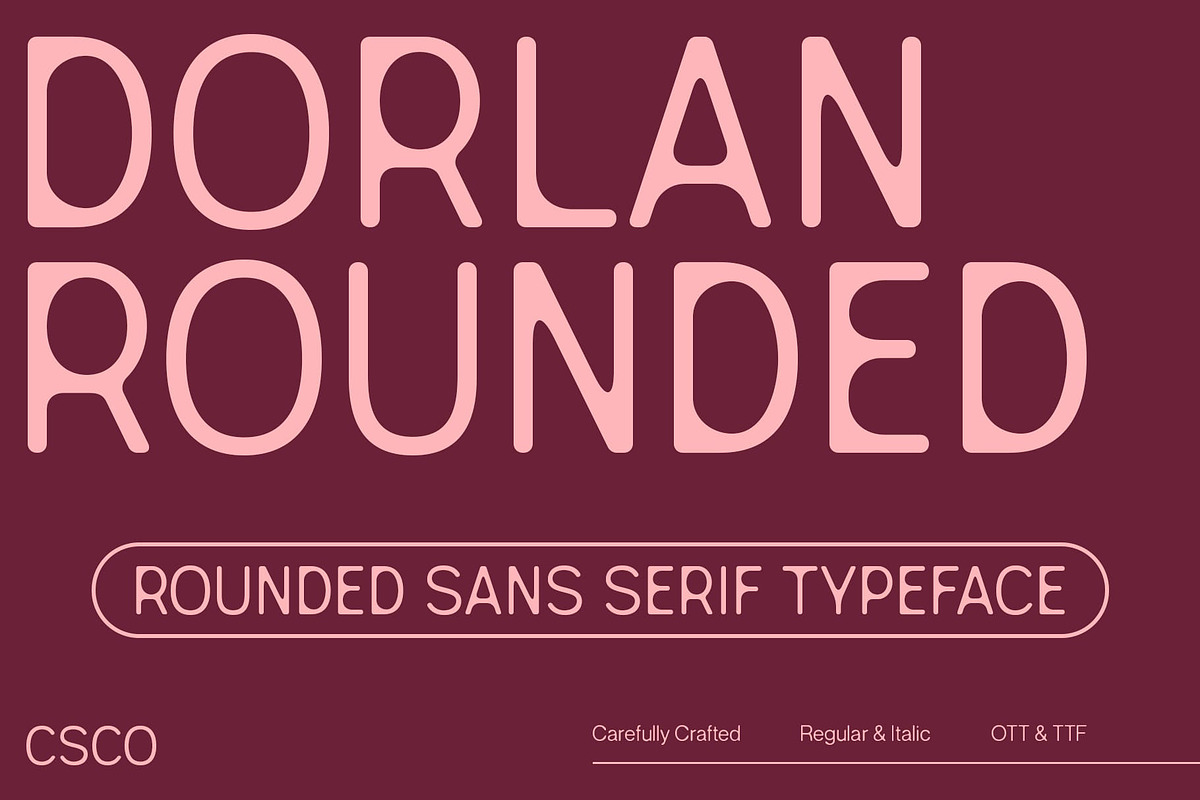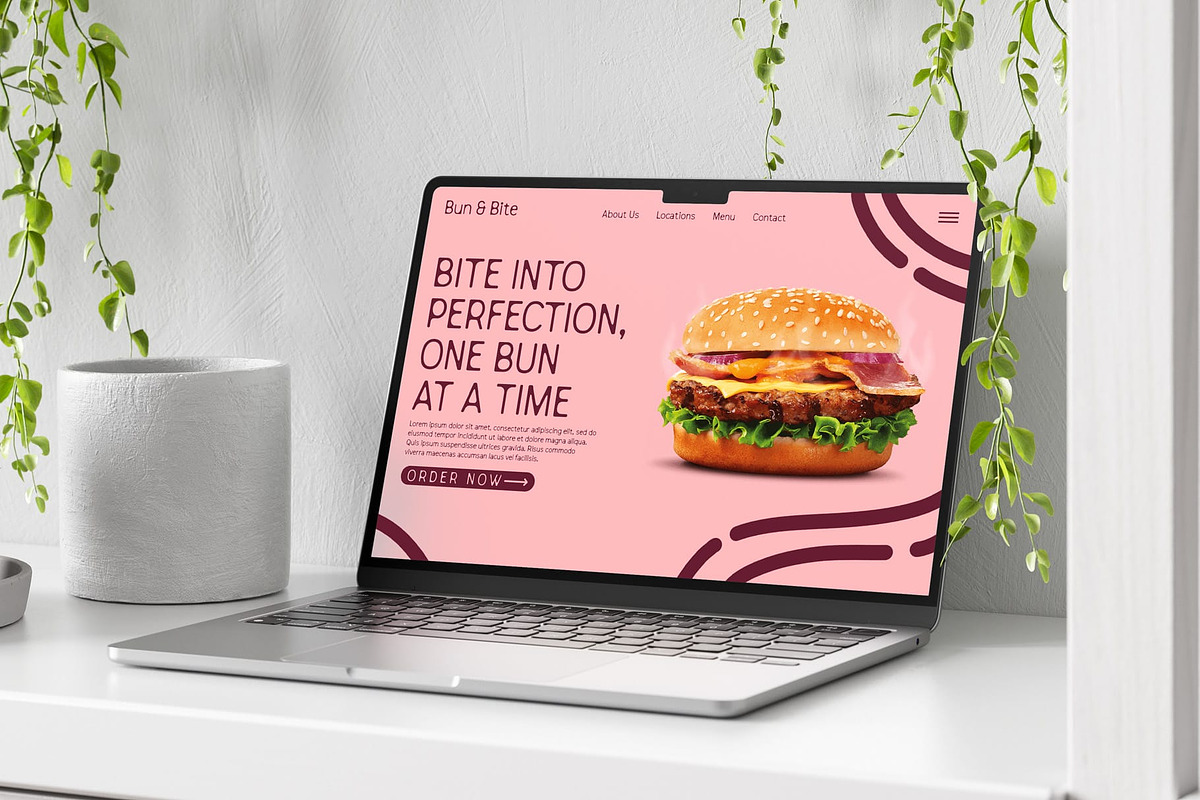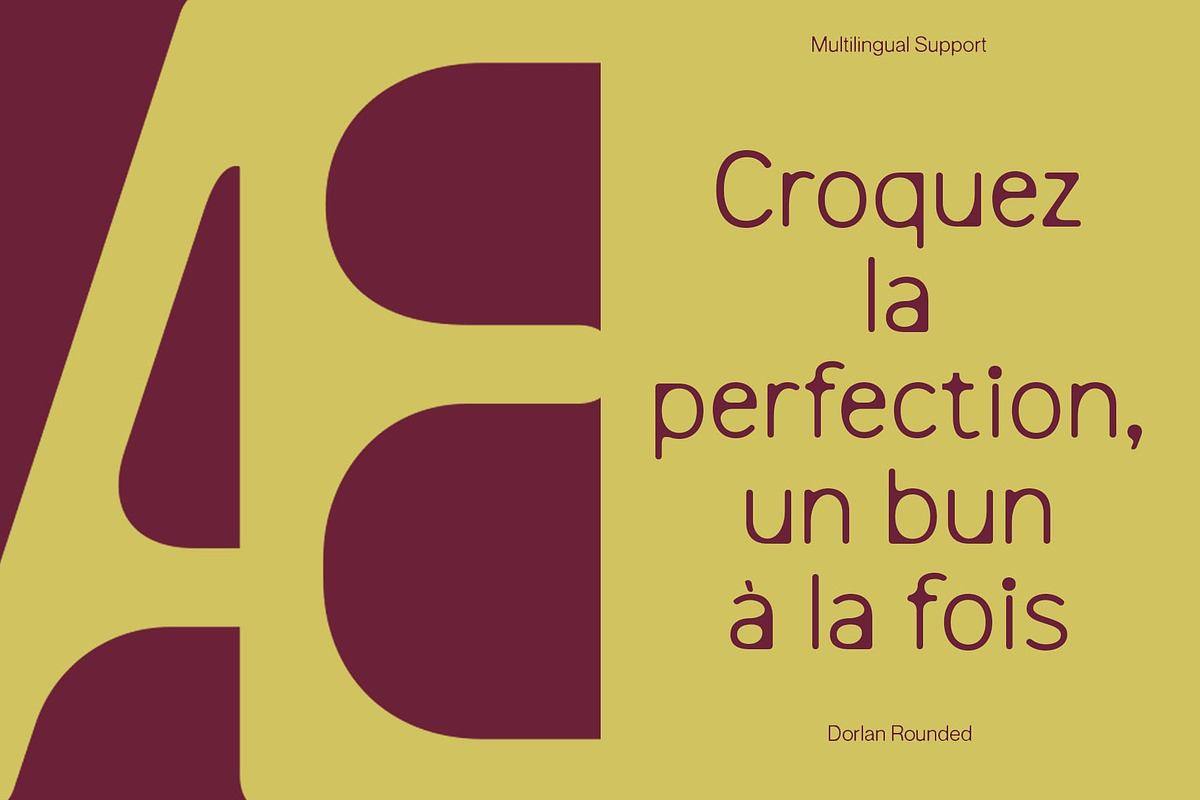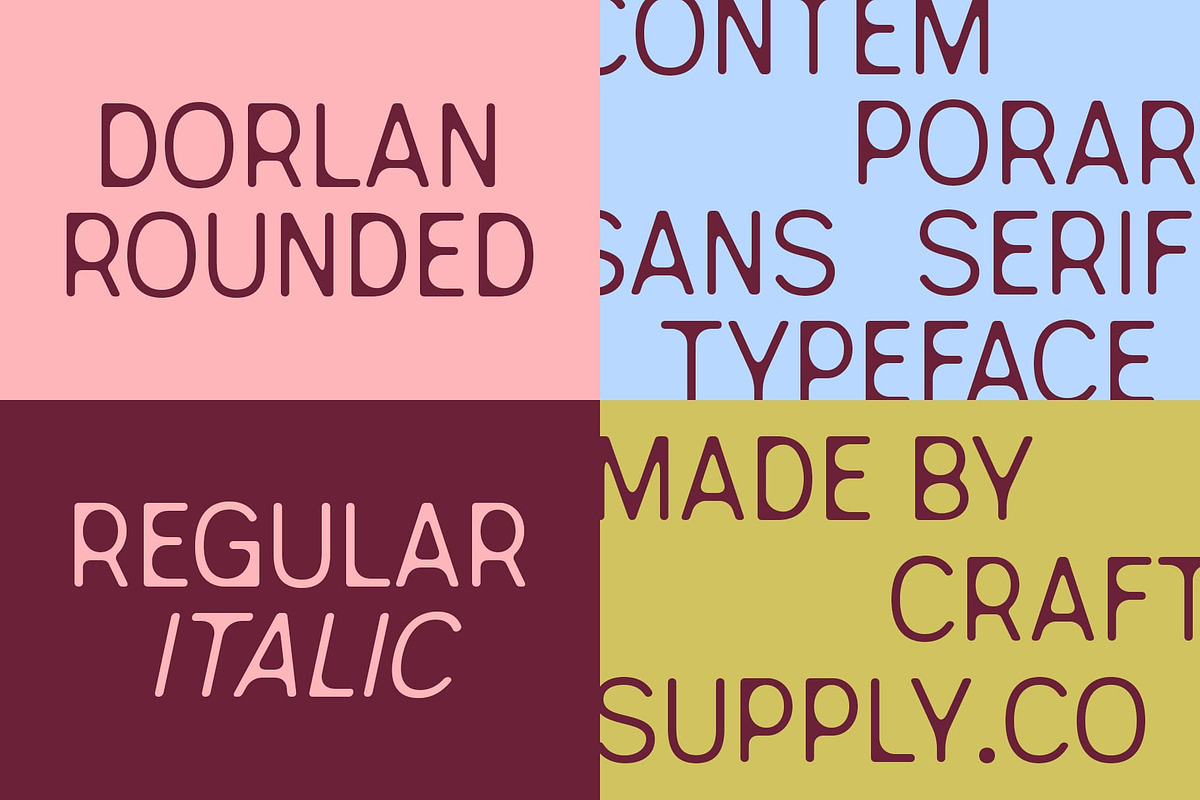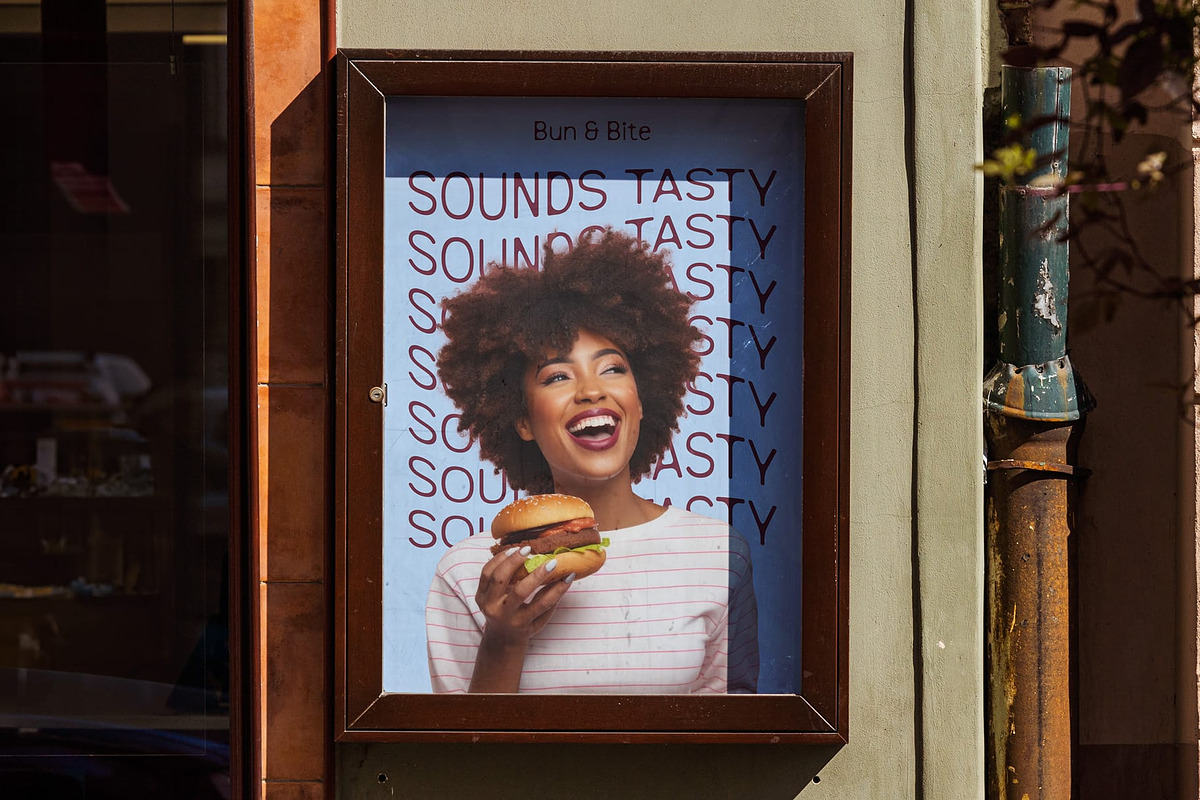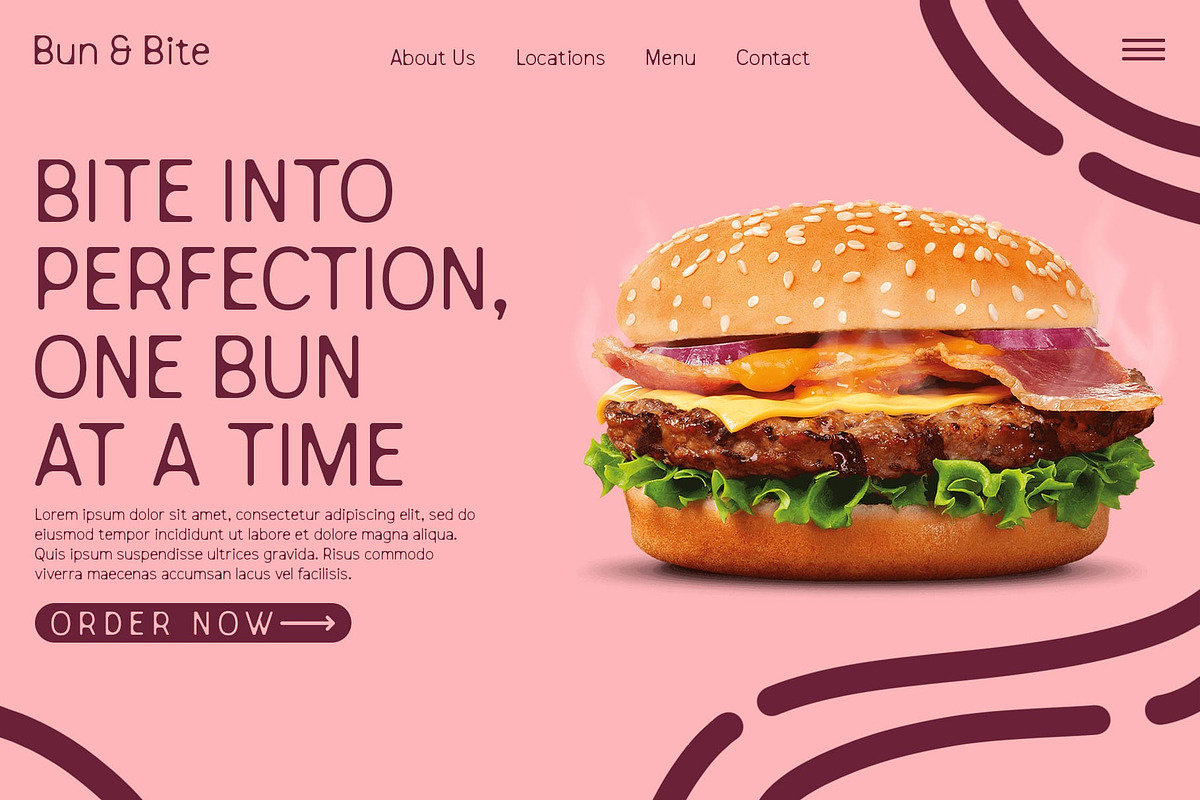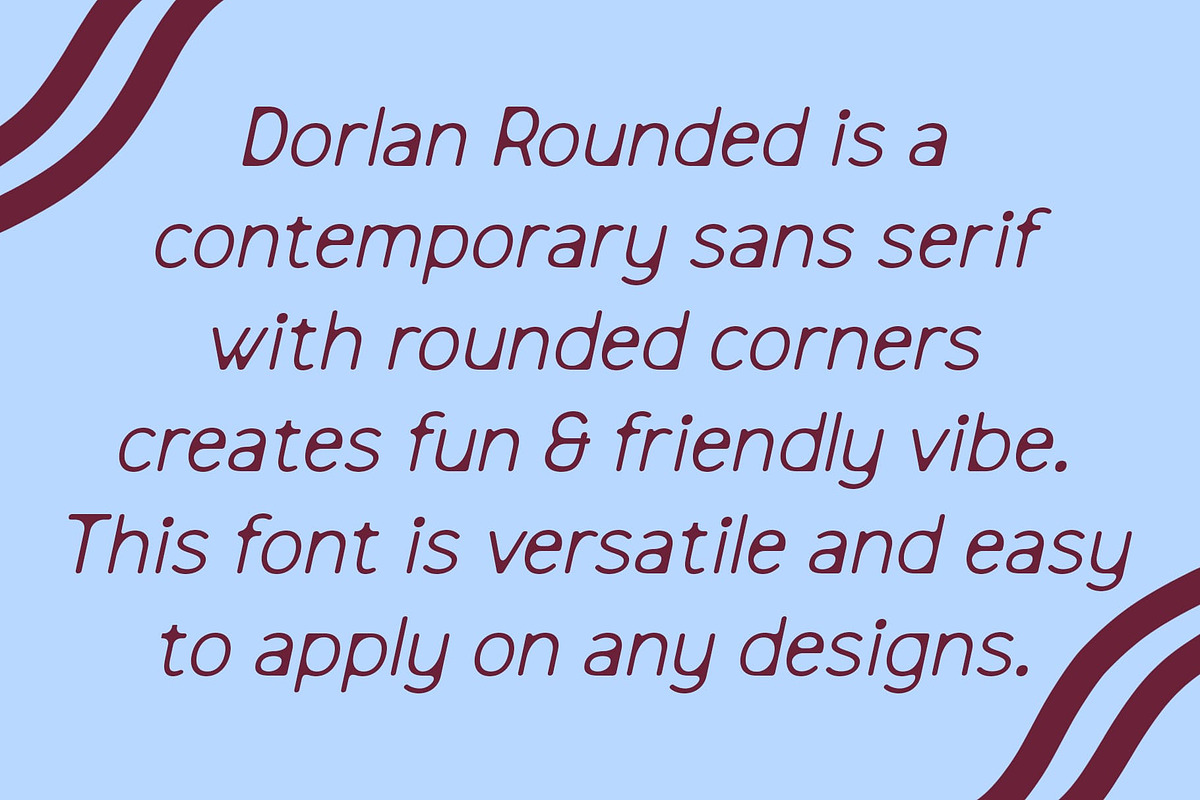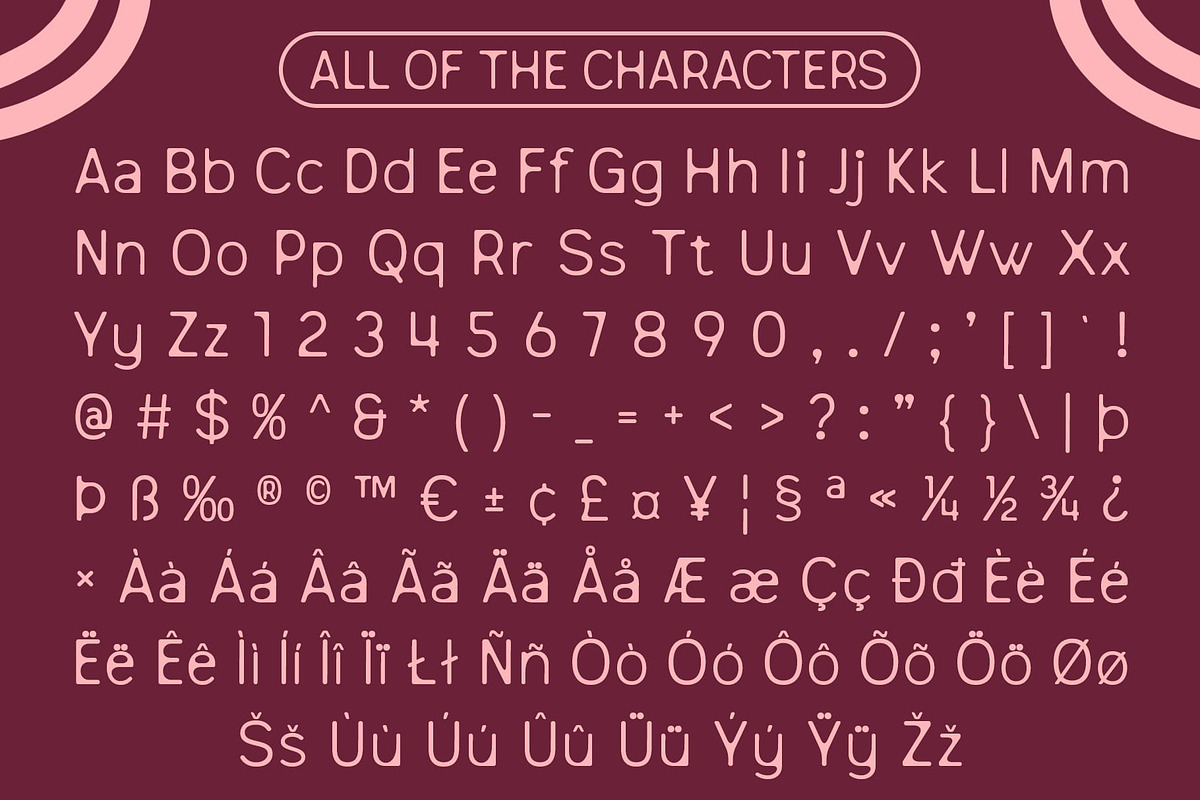
Dorlan Rounded
Dorlan Rounded Font: Clean, Modern Sans Serif with Geometric Precision
Minimalist Aesthetic with Rounded Geometric Shapes Dorlan Rounded is a modern sans serif font that combines clean lines with rounded, geometric shapes. Its minimalist design creates a sleek and contemporary aesthetic that exudes modernity and sophistication. The rounded edges soften the clean, geometric forms, offering a visually appealing balance of simplicity and elegance.
Versatile Design for Contemporary Applications The versatility of Dorlan Rounded makes it an ideal choice for a wide range of design applications. Whether used for branding, digital design, advertising, or editorial layouts, this font provides clarity and a fresh, modern appeal. Its clean, crisp letterforms ensure legibility and effectiveness in various contexts, from headlines to body text.
Perfect for Branding and Digital Design Dorlan Rounded’s minimalist and modern design is especially suited for branding and digital design projects where clear, impactful typography is essential. Its geometric structure adds a contemporary touch, making it a perfect choice for tech brands, websites, and apps looking for a clean, professional look. This font brings a modern flair to any creative project, ensuring that your message is communicated with style and precision.
- Dorlan Rounded Regular
- Dorlan Rounded Italic